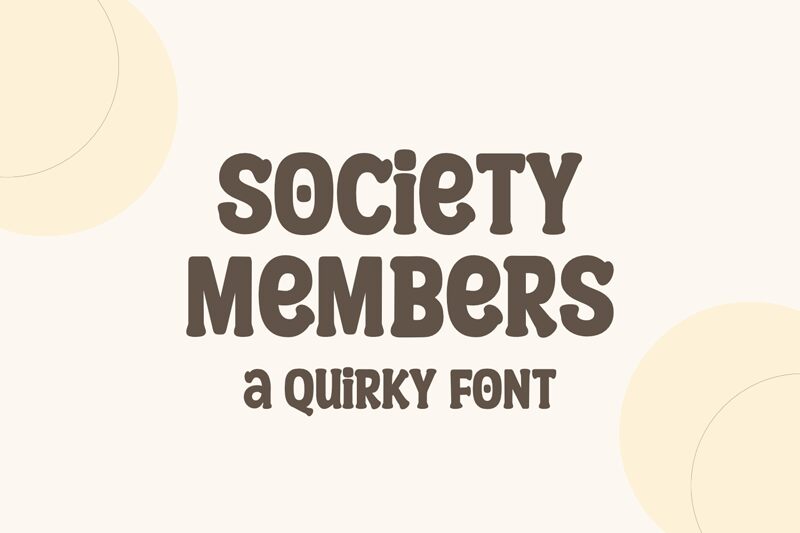
Society Members is a bold, narrow font designed by Ali Hamidi. Perfect for adding a quirky touch to your projects, it's an ideal choice for logos, headlines and posters. Get creative with Society Members Regular and make your work stand out!
Society Members